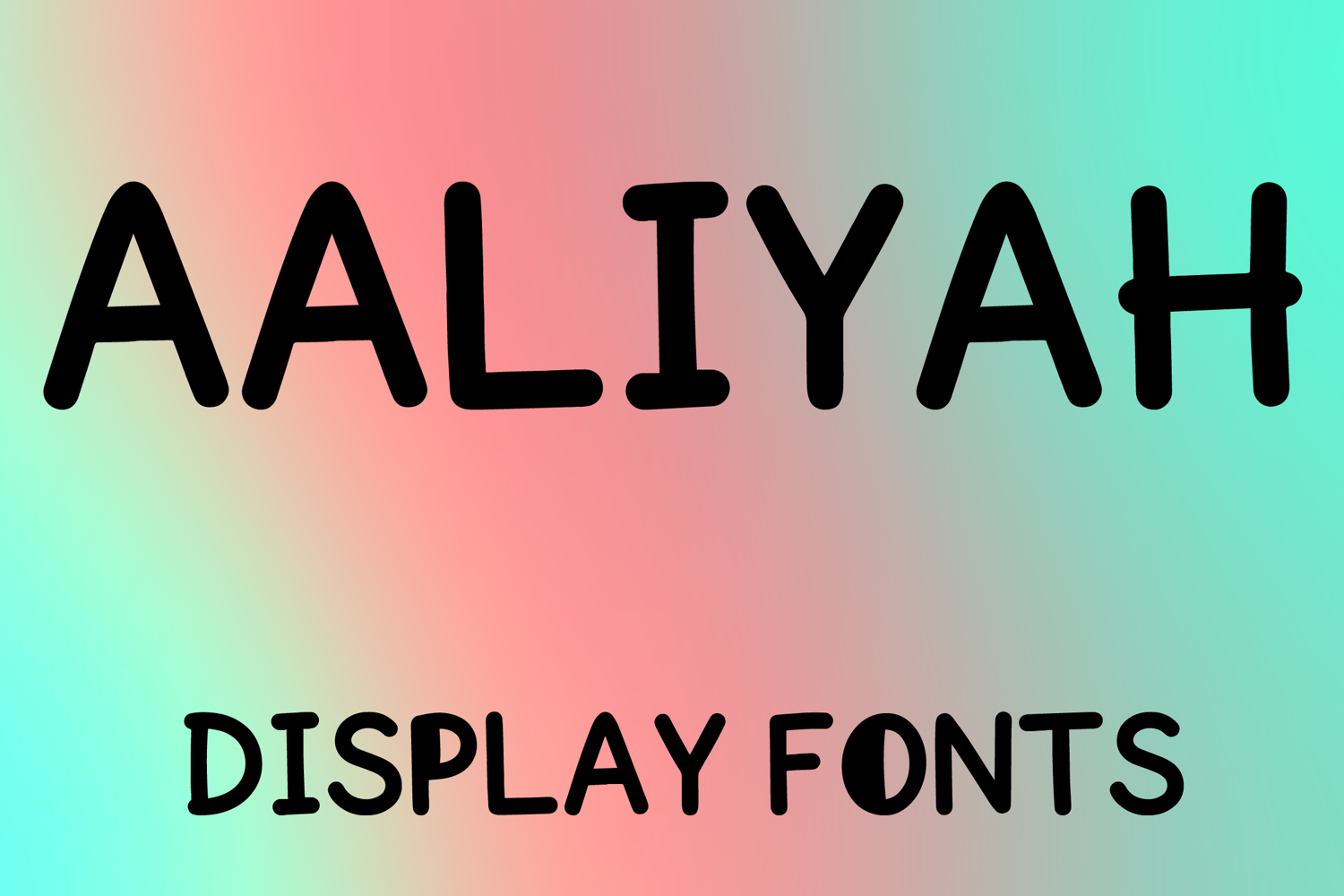
AALIYAH
AALIYAH is a playful display font with a bold hand-drawn style and soft rounded character. Its uppercase letterforms feature thick smooth strokes, gentle curves, and charming uneven details that create a fun, friendly, and eye-catching look. Designed with uppercase letters A–Z and numbers 0–9, AALIYAH is perfect for branding, posters, packaging, invitations, kids’ designs, social media graphics, and creative projects that need a cheerful and memorable touch.